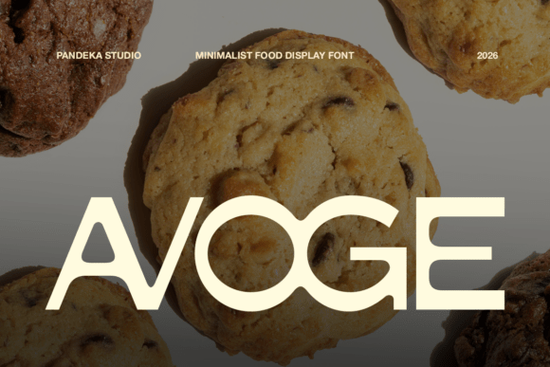
If you're looking for a font that feels fresh, friendly, and just a little bit fun especially for food-related projects Avoge Font is worth checking out. It’s designed with clean geometric lines, soft rounded edges, and a playful yet professional look that works well across many types of creative work. Whether you’re branding a new bakery, designing packaging for homemade cookies, or creating social media graphics for a café, Avoge brings a light, appetizing energy to your designs.
What makes Avoge Font stand out?
Unlike many display fonts that lean too hard into the quirky or dramatic, Avoge strikes a balance. It’s bold enough to grab attention but still easy to read at smaller sizes a big plus for menus, labels, and signage. The font’s structure feels modern and intentional, making it perfect for contemporary food brands that want to feel approachable and current.
One of the standout features is the inclusion of over 16 unique ligatures. These aren’t just decorative they help create smoother, more natural-looking text when certain letter combinations appear together. For example, “f” and “t” or “s” and “t” blend seamlessly, giving your design a polished, custom feel without extra effort.
Where can you use Avoge Font?
This font shines in a variety of food and lifestyle design scenarios:
- Snack & cookie packaging – Its cheerful tone matches well with treats and baked goods.
- Bakery and café branding – Works great for logos, business cards, and menu headers.
- Restaurant promotions – Ideal for posters, flyers, and digital ads.
- Product labels and signage – Clear, readable, and visually engaging.
- Social media content – Great for Instagram posts, stories, and Reels that highlight food or desserts.
The versatility means you can use it consistently across different platforms and materials while keeping your brand voice consistent.
How does Avoge compare to other display fonts?
If you’ve explored similar fonts like Avoge, you’ll notice it stands apart in how it balances playfulness with professionalism. Fonts like Milko or Siglon bring their own charm Milko leans more toward whimsy, while Siglon has a hand-drawn warmth but Avoge sits in its own sweet spot: modern, clean, and slightly bouncy without being distracting.
For those who love bold, expressive typefaces, Milko offers a similar vibe but with a more organic feel. If you’re after something energetic and vibrant, Siglon might be a better fit. And if you’re going for a retro-funky look, Super Funky delivers a punchier, more exaggerated style.
But if you want something that feels both modern and inviting something that says “freshly baked” without shouting Avoge fits perfectly.
Why designers love using Avoge
It’s not just about looks. The real value comes from how much easier it makes your workflow. With built-in ligatures, you don’t have to manually adjust spacing or worry about awkward letter overlaps. That means faster design time and fewer tweaks later on.
Final thoughts
Avoge Font isn’t trying to do everything. Instead, it does one thing really well: make food-related designs feel warm, modern, and inviting. It’s reliable, well-crafted, and ready to use across print and digital formats.
If you’re working on a food brand, a small business project, or even a personal craft idea, giving Avoge a try could be a simple way to give your visuals a fresh boost.
- Test it at different sizes especially on labels and menus.
- Use the ligatures to enhance flow in headlines and short phrases.
- Pair it with a clean sans-serif for body text to keep balance.